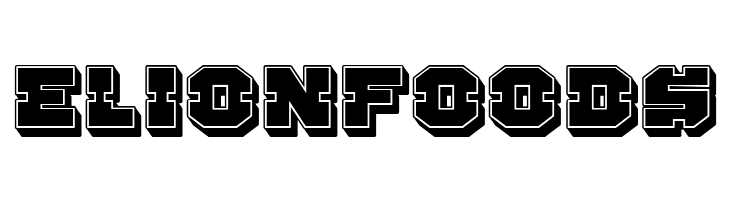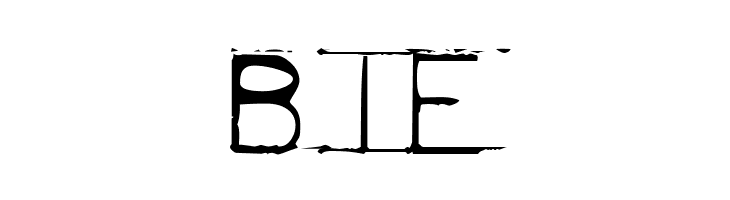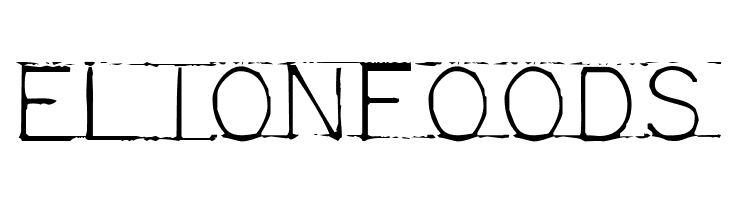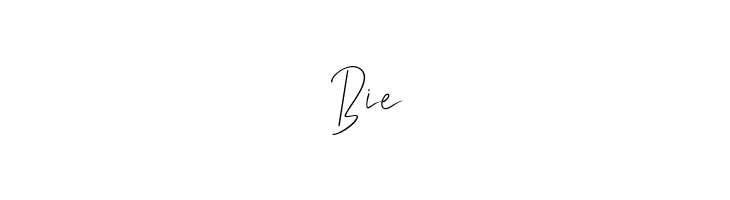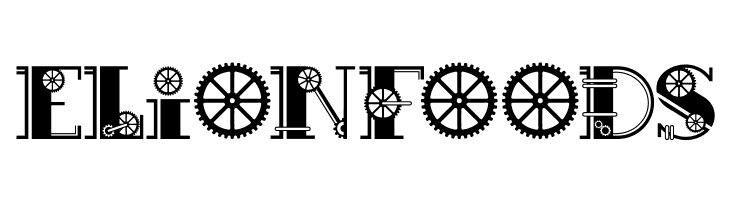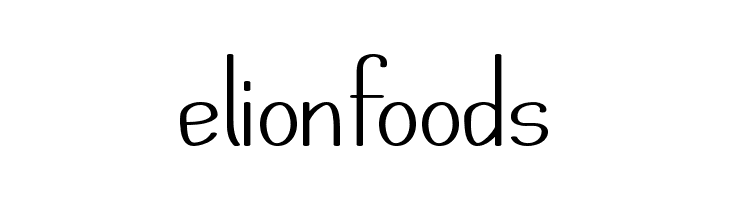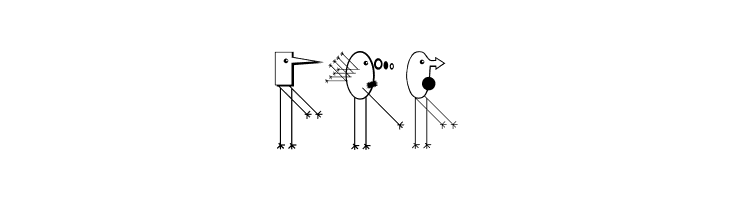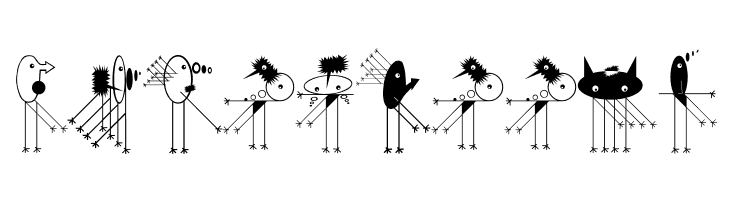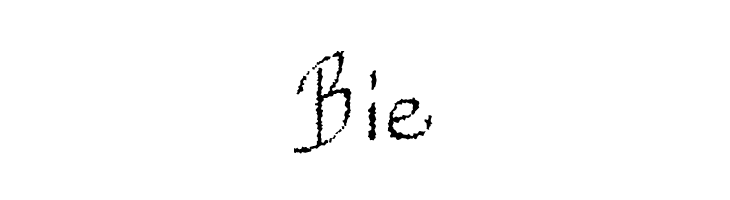
An elegant script font with ornate loops and high contrast, ideal for formal uses.
A casual, handwritten font with an elegant, signature-like style.
A bold, geometric font with a mechanical, futuristic style.
A bold, decorative font with a mechanical, steampunk aesthetic.
A mechanical, industrial font with a distressed, vintage texture.
A vintage, distressed typewriter-style font with a bold, mechanical appearance.
A jagged, hand-drawn font with a mechanical, inkblot-inspired style.
A quirky, illustrative display font with characters depicted as abstract stick-figure birds.